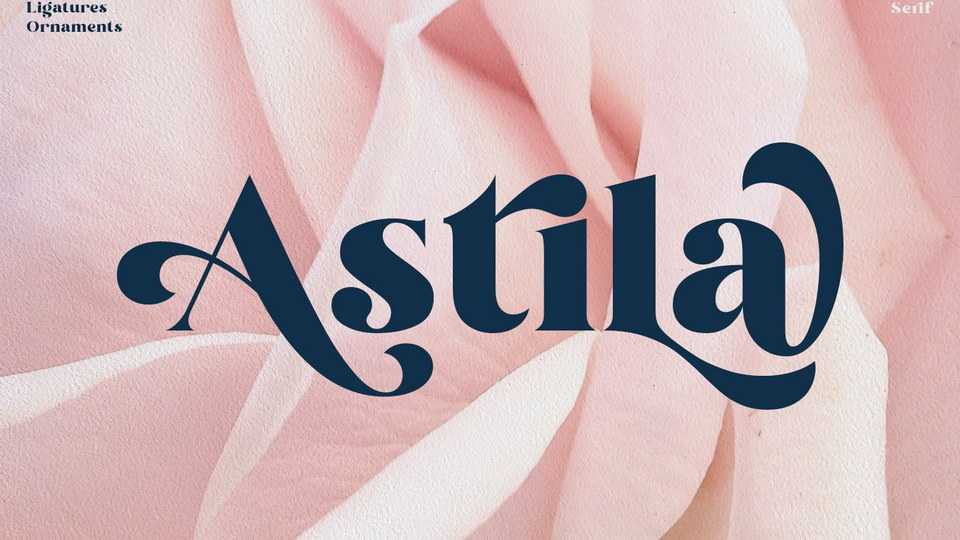
Download Astila font, a modern and distinct serif typeface. Bold and imposing, Astila font will make each of your design ideas come alive.
Designer: Putu Eka Hermawan